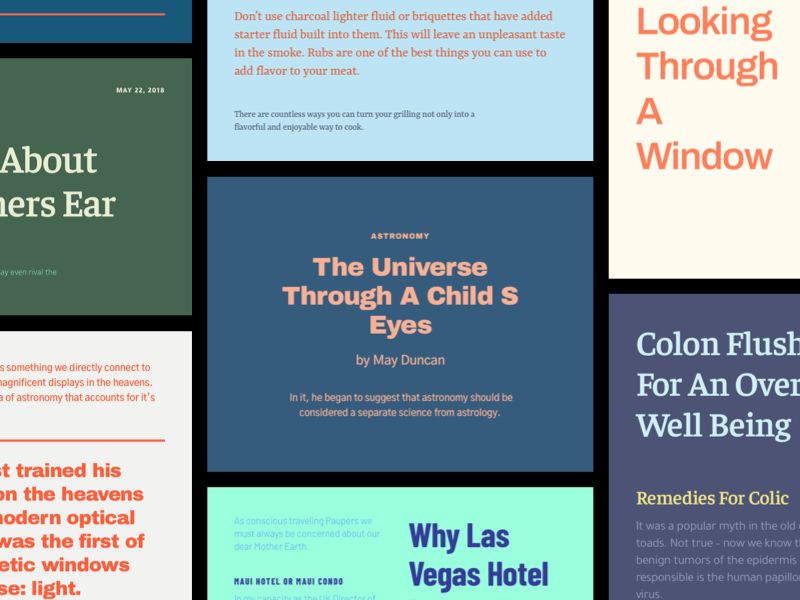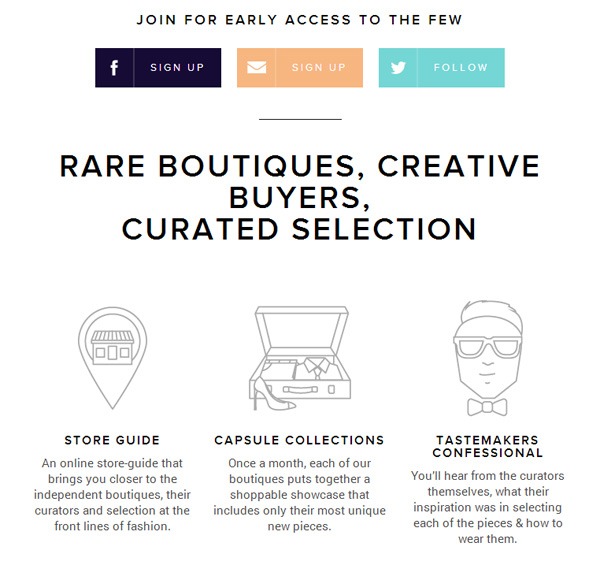
Google Fonts That Look Good Together
The best google font pairings for 2020 open sans and roboto.
Google fonts that look good together. Poppins is a crisp sans serif font that pairs well and is a pleasure to read. The best google font combinations to try raleway and open sans. An elegant font that has lots of practical applications raleway puts the funk into functional.
Lusitana is warm welcoming and down to earth. If you dont want something boring or something crazy its a good middle ground that looks great in both a headline and body copy. Font pair fontpairco another well designed resources for finding google fonts that go well together.
The header of this screenshot is open sans semi bold. The web app allows you to preview google fonts in the browser and you have the option to. Crimson text is a straightforward font with strong serifs but little to no differentiation between the thicks and thins.
Combine the two and you have a dynamic that always works. Together they make for a combination that is fun easy to read and pragmatic. You can copy and paste your own content in to see what it looks like with these font combinations.
Sometimes simple font pairings are the ones that make the most impactas is the case with. Lato could give open sans a run for its money as the champion of all purpose fonts in googles library. As a great all purpose font lato is incredibly popular and easy to use.
Lato crimson text lato and crimson text are an example of another classic look that would go together fantastically in most designs. This font combination works best for shorter text on your website. The paragraph below it is roboto regular.
Allerta is a moderately bold sans serif with a personality. I love this look for tech and news blogs especially. Playfair display and montserrat.
The combination of these two great google font pairings creates a result which is friendly easy to read and very practical. Using alegreya and lato as font pairs creates a result which is very natural and easy to read.